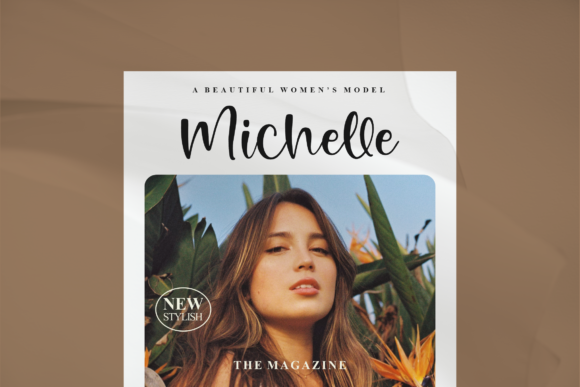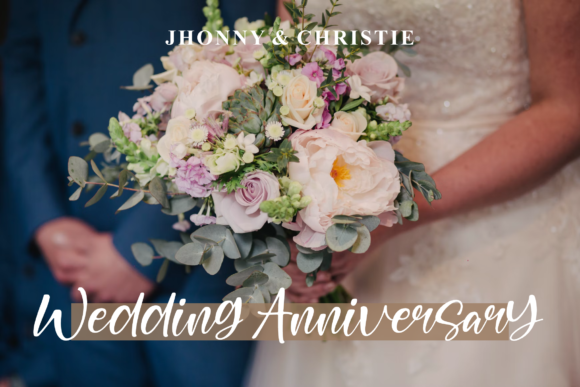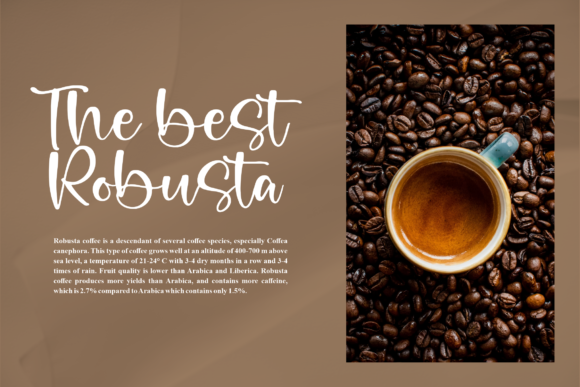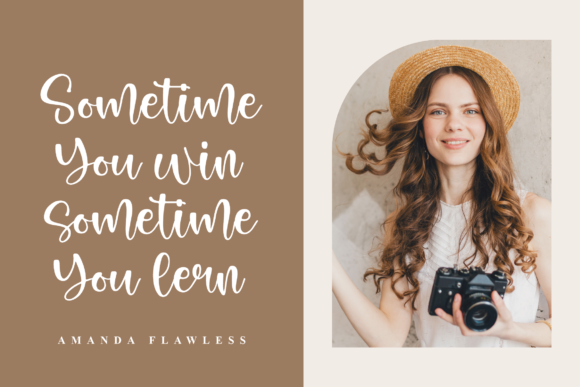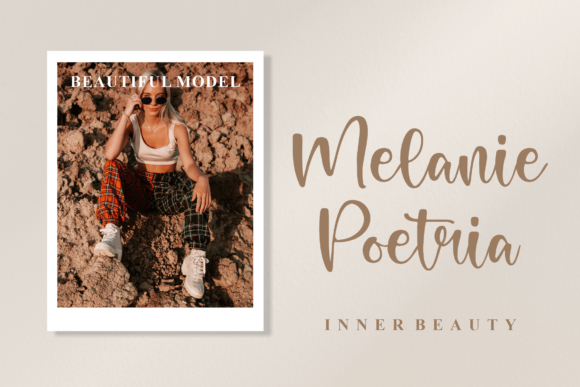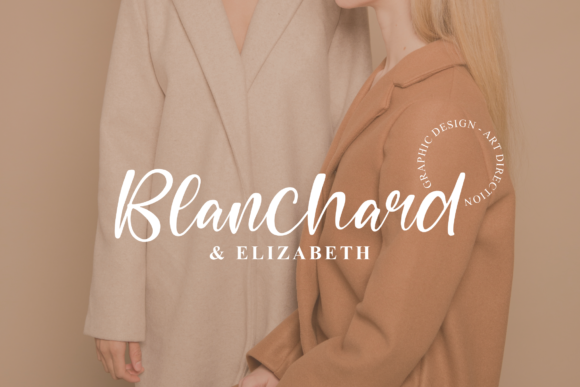
Introducing Flowless Font: Elevate Your Designs with Elegance and Sophistication
In the world of design, typography plays a crucial role in conveying the message and aesthetic of a project. Whether you’re working on packaging products, invitation cards, flyers, mockups, event posters, or any other visual material, the right font can make all the difference. This is where Flowless Font comes into play – a free-flowing script font designed to add a touch of elegance and sophistication to your designs.
What is Flowless Font?
Flowless Font is a meticulously crafted script font that embodies the essence of fluidity and grace. Its creation was inspired by the need for a high-quality, versatile typeface that can seamlessly integrate into a wide range of design projects. With Flowless, you can add a professional and luxurious feel to your work, setting it apart from the ordinary.
Key Features of Flowless Font
- Free-Flowing Script: Flowless boasts a smooth, connected script style that brings a sense of dynamism and elegance to your designs.
- Beautiful and Balanced Character: Each character in Flowless has been carefully designed to ensure balance and harmony, making it perfect for large design projects.
- PUA Encoded: Being PUA (Private Use Area) encoded, Flowless allows easy access to all glyphs and swashes, providing you with a wide range of creative possibilities.
- High-Quality Vibes: The font is tailored to deliver high-quality aesthetics, suitable for projects that demand a sophisticated look.
- Versatility: Flowless is incredibly versatile, making it an excellent choice for various applications, from product packaging to event posters.
Use Cases for Flowless Font
The versatility of Flowless Font makes it an invaluable asset for designers and crafters across multiple projects:
- Packaging Products: Elevate your product packaging with a sophisticated and luxurious feel.
- Invitation Cards: Make your invitations stand out with elegant and refined typography.
- Flyers and Brochures: Add a professional touch to your marketing materials.
- Mockups: Enhance your mockups with high-quality text that resonates with your brand’s aesthetic.
- Event Posters: Create stunning event posters that capture attention and convey class.
Why Choose Flowless Font?
Choosing Flowless Font for your design projects comes with numerous benefits:
- Ease of Use: Thanks to its PUA encoding, using Flowless is straightforward, allowing you to access a wide range of glyphs and swashes easily.
- Unique Aesthetic: The font’s unique, free-flowing script style ensures your designs stand out.
- Time-Saving: With Flowless, you can achieve professional-looking results quickly, saving you time and effort.
- Support for Various Projects: Its versatility means you can use Flowless across different projects, making it a valuable addition to your font library.
Flowless Font is more than just a script font; it’s a design tool that can elevate your projects to new heights of elegance and sophistication. Whether you’re a professional designer or a crafter looking to add a touch of luxury to your work, Flowless is an excellent choice. Its beautiful and balanced character, combined with its PUA encoding for easy glyph and swash access, makes it a versatile and valuable asset for any design project. Explore the creative possibilities with Flowless Font today and transform your designs with its high-quality, flowing script style.